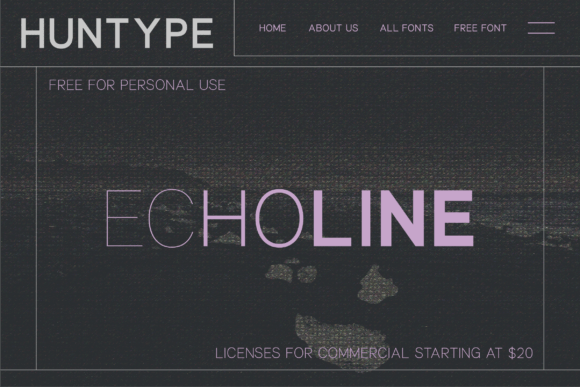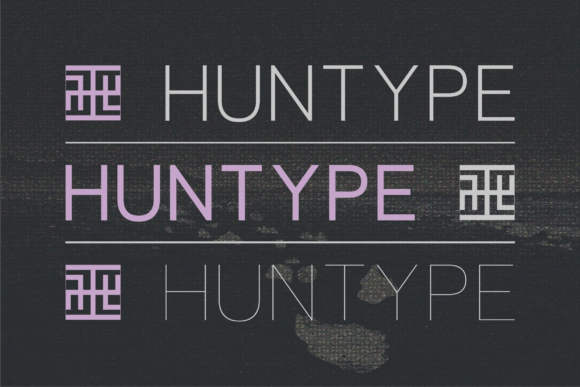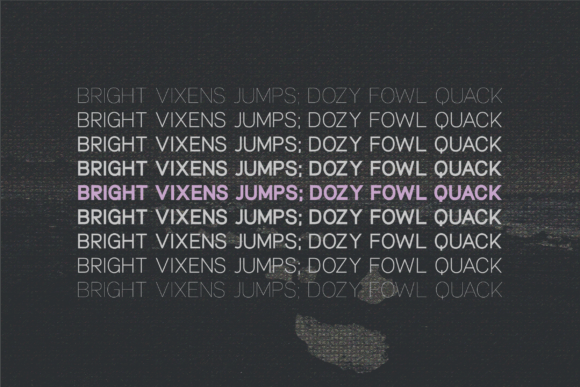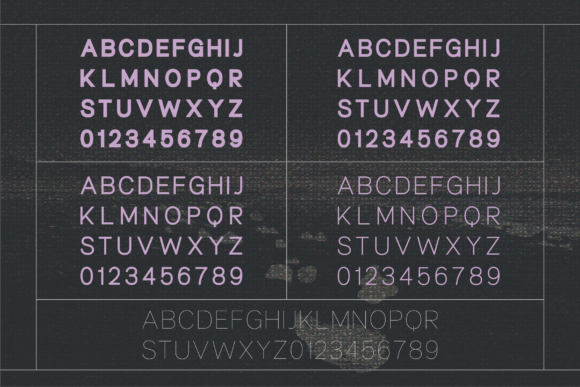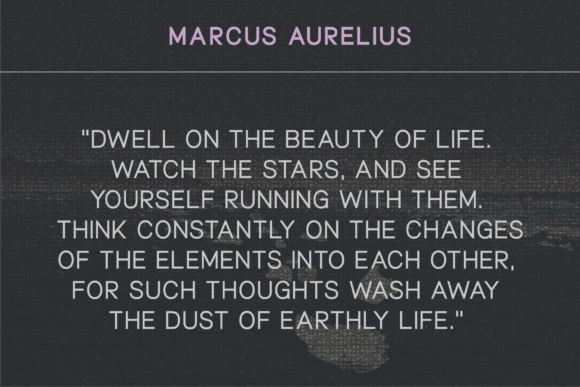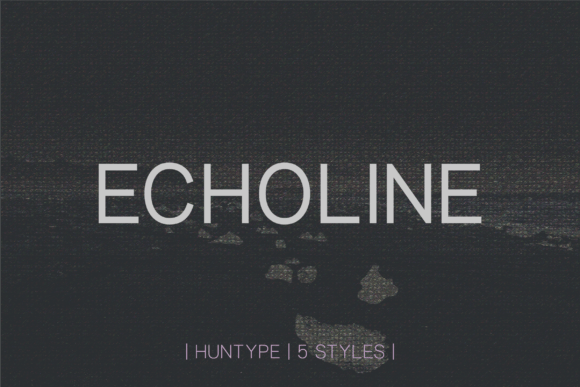
Introducing Echoline Sans Serif Font Family: Elevate Your Designs with Elegance and Versatility
In the world of typography, a font can make all the difference in the success of a design project. A well-crafted font can elevate your brand’s visual identity, convey your message with clarity, and leave a lasting impression on your audience. This is where Echoline Font comes into play – a thoughtfully designed sans serif font family that embodies the perfect blend of elegance, modernity, and versatility.
A Font Family of Unparalleled Versatility
Echoline Font Family is a comprehensive collection of five distinct weights: THIN, LIGHT, REGULAR, BOLD, and BLACK. This range of weights offers designers and content creators an incredible array of creative possibilities, making it an ideal choice for a wide range of projects. Whether you’re aiming to create a subtle and delicate touch or a bold and impactful statement, Echoline Font Family provides the perfect tool to bring your vision to life.
Elegance and Sophistication Redefined
At the heart of Echoline Font Family lies a meticulous attention to detail, ensuring that every letterform exudes a sense of sophistication and refinement. The clean lines, precise curves, and carefully crafted letter spacing create a harmonious visual flow that is both pleasing to the eye and highly legible. This makes Echoline Font an excellent choice for projects that demand a high level of professionalism, such as corporate branding, editorial design, and digital media.
Seamless Integration with Modern Design
Echoline Font Family is designed to seamlessly integrate with modern design trends, making it an excellent choice for contemporary projects. Its sleek and minimalist aesthetic ensures that your designs will feel fresh and up-to-date, while its versatility allows it to adapt to a wide range of creative applications. Whether you’re designing a website, crafting a social media campaign, or creating a marketing brochure, Echoline Font Family provides the perfect typographic solution.
Key Features of Echoline Font Family
• Five distinct weights: THIN, LIGHT, REGULAR, BOLD, and BLACK, offering a wide range of creative possibilities.
• High legibility: Carefully crafted letterforms ensure clear communication and effortless reading.
• Elegant and sophisticated: Meticulously designed to convey a sense of refinement and professionalism.
• Versatile: Suitable for a wide range of design applications, from digital media to print materials.
• Modern and fresh: Sleek and minimalist aesthetic ensures your designs will feel contemporary and up-to-date.
Unlock Endless Creative Possibilities
With Echoline Font Family, the possibilities are endless. Imagine pairing the THIN weight with a bold image to create a striking visual statement, or using the BLACK weight to add emphasis to a key message. The REGULAR weight provides a reliable and professional foundation for body text, while the LIGHT and BOLD weights offer exciting opportunities for creative experimentation.
Why Choose Echoline Font Family?
In a crowded marketplace, it’s essential to stand out from the competition. By choosing Echoline Font Family, you’ll not only elevate your designs with a sophisticated and modern typographic solution, but also benefit from:
• Time-saving: A comprehensive font family that meets all your design needs.
• Cost-effective: A versatile font family that reduces the need for multiple font purchases.
• Consistency: A unified visual identity across all your design projects.
Discover the limitless creative possibilities of Echoline Font Family and take your designs to the next level. With its impeccable craftsmanship, versatility, and modern aesthetic, this font family is poised to become an essential tool in every designer’s arsenal. Experience the elegance, sophistication, and creative freedom that Echoline Font Family has to offer – download it today and unlock a world of typographic excellence!
Font Name Echoline Font
Author Huntype